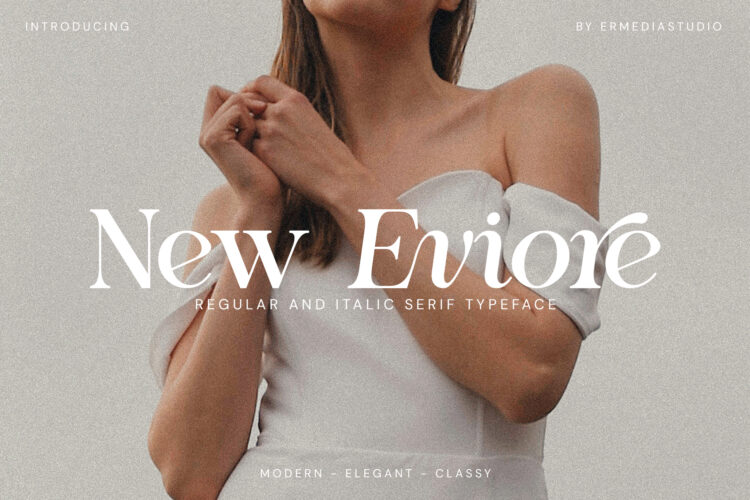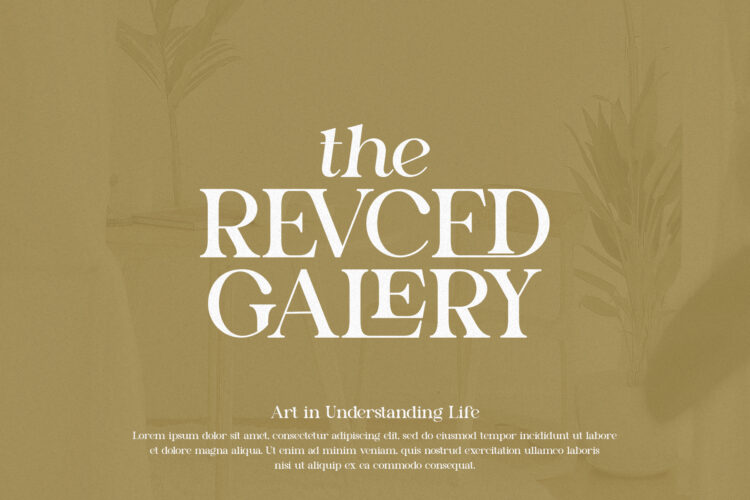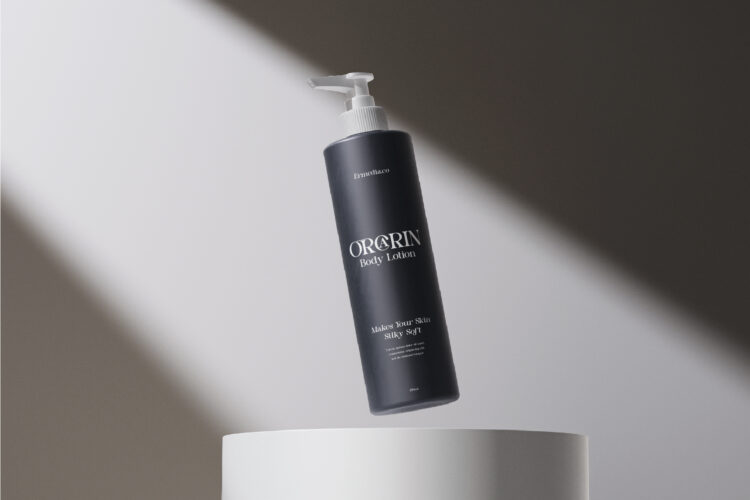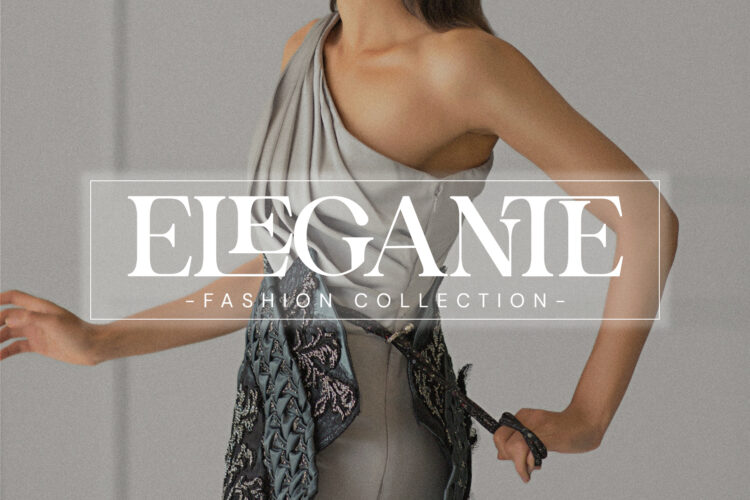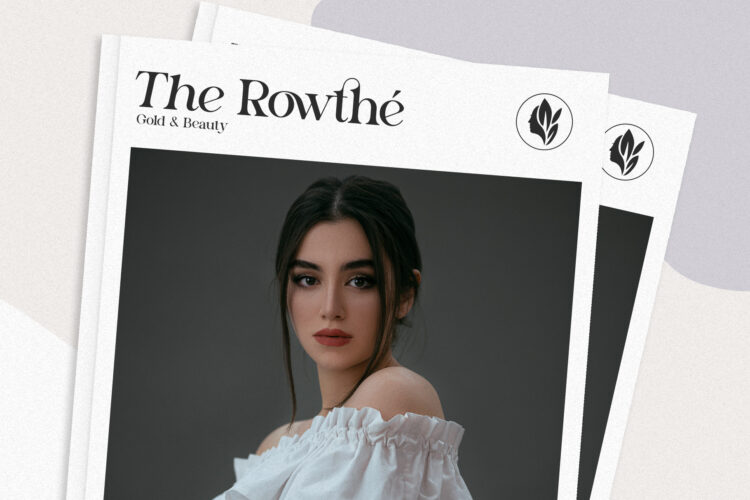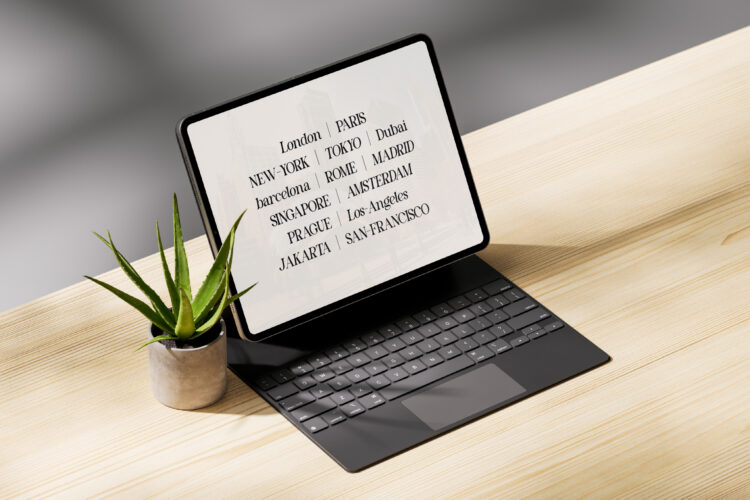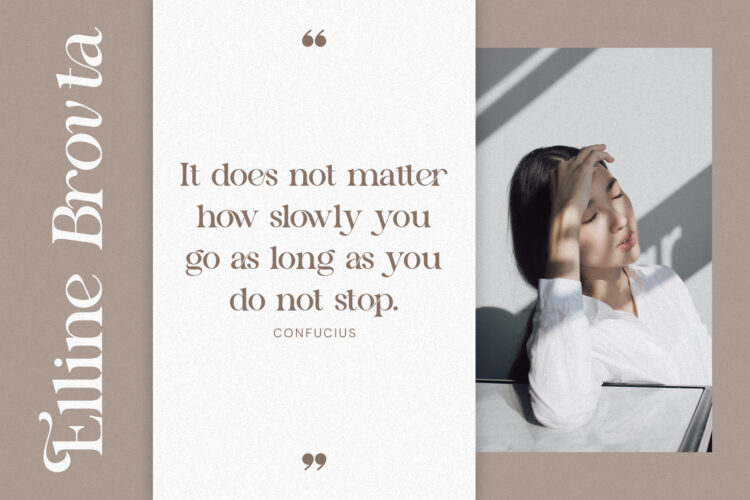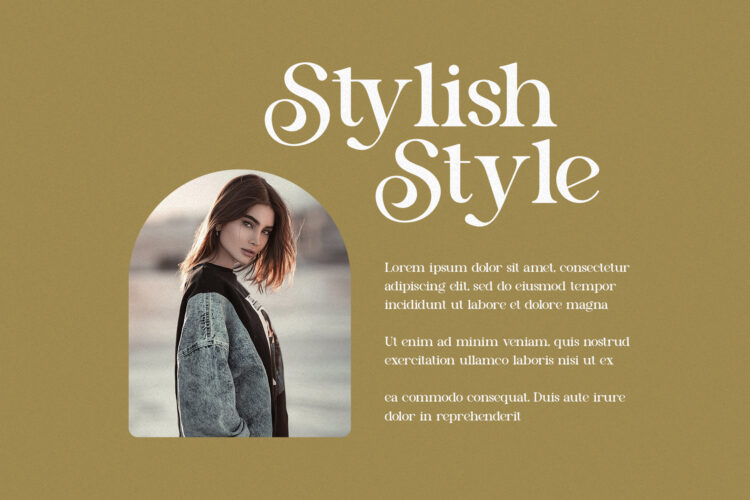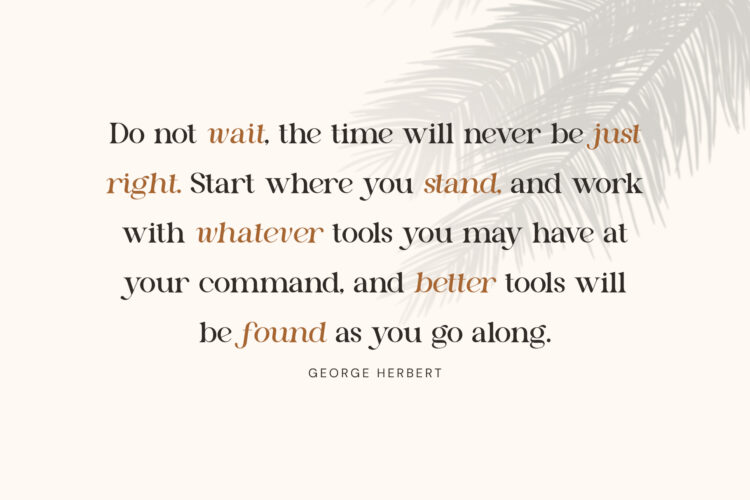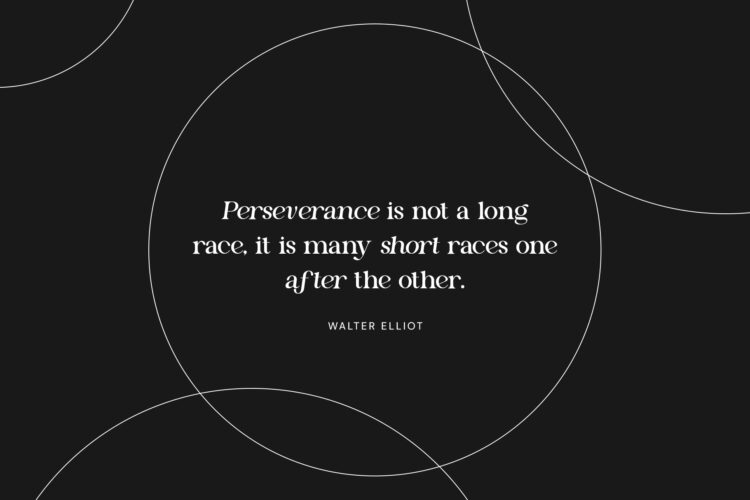
New Eviore Serif is a balanced, smooth, elegant and stylish serif font. He has a beautiful character. It fits perfectly with invitation card designs, company logos, movie titles, movie names, business cards, book titles, brand names and various other designs. New Eviore Serif is a subtle serif font that exudes sophistication and elegance. Its stylish alternations and ligatures make this font the perfect partner for any project.